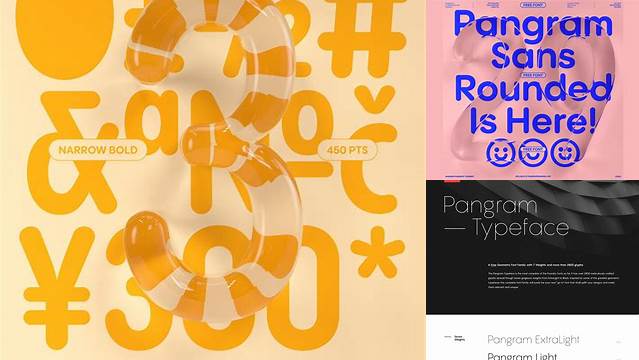
PP Pangram Sans Font: Free Download & Usage Guide
Are you looking for a versatile and modern sans-serif font for your next design project? Look no further than PP Pangram Sans Font. In this comprehensive guide, we'll delve into everything you need to know about this popular typeface, including its unique characteristics, ideal use cases, and, most importantly, how to download it for free. PP Pangram Sans Font has become a favorite among designers and typographers for its clean lines, excellent legibility, and extensive character set, making it suitable for a wide range of applications. Whether you're designing a website, creating a logo, or working on print materials, PP Pangram Sans offers the flexibility and aesthetic appeal you need to make your project stand out. The demand for high-quality, free fonts has grown exponentially, and PP Pangram Sans Font certainly fits the bill, providing a professional touch without the hefty price tag. In the following sections, we will explore the various aspects of this font, ensuring you have all the information necessary to make an informed decision about using it in your design endeavors. We'll cover its history, key features, licensing, and, of course, guide you through the process of downloading it safely and legally. So, let's dive in and discover why PP Pangram Sans Font is the perfect addition to your font library.
What is PP Pangram Sans Font?
At its core, PP Pangram Sans Font is a contemporary sans-serif typeface designed with clarity and versatility in mind. Its clean, geometric shapes and balanced proportions make it highly readable across various media, from digital screens to printed materials. The term "pangram" itself refers to a sentence that contains every letter of the alphabet, and PP Pangram Sans lives up to its name by including a comprehensive character set that supports multiple languages and typographical needs. This font family stands out due to its neutral yet modern aesthetic, making it an excellent choice for projects that require a professional and approachable look. The absence of serifs gives it a clean and minimalist feel, which is particularly well-suited for contemporary design trends. Furthermore, PP Pangram Sans Font is available in multiple weights, ranging from light to bold, providing designers with the flexibility to create visual hierarchy and add emphasis where needed. The different weights ensure that the font can be used effectively for both headings and body text, maintaining readability and visual appeal. The attention to detail in its design, such as the subtle variations in stroke width and the carefully crafted letterforms, contributes to its overall elegance and usability. PP Pangram Sans Font is not just another sans-serif font; it is a carefully constructed typeface that aims to meet the diverse needs of modern design projects. Whether you are working on a branding project, a website, or a print campaign, PP Pangram Sans Font offers a reliable and stylish option. Its versatility and legibility make it a go-to choice for designers looking to create a polished and professional look. In the following sections, we will delve deeper into its specific features and explore how you can best utilize this font in your projects.
PP Pangram Sans Font boasts several key features that make it a standout choice for designers. First and foremost, its clean and modern design ensures excellent legibility, making it suitable for a wide range of applications. The absence of serifs contributes to its contemporary feel, while the carefully balanced letterforms maintain a professional appearance. This makes PP Pangram Sans Font an ideal option for both digital and print projects, ensuring your text remains clear and readable across all mediums. Another notable characteristic is its extensive character set. As the name suggests, PP Pangram Sans includes a comprehensive range of characters, symbols, and ligatures, supporting multiple languages and typographical nuances. This is particularly beneficial for projects that require multilingual support or specialized typographic elements. The inclusion of various weights, from light to bold, further enhances its versatility, allowing designers to create visual hierarchy and emphasis within their designs. The different weights provide the flexibility to use PP Pangram Sans Font for headlines, body text, and captions, ensuring a cohesive and professional look throughout your project. Moreover, the font's geometric construction and balanced proportions contribute to its overall aesthetic appeal. The subtle variations in stroke width and the meticulous design of each letterform demonstrate the attention to detail that went into its creation. This attention to detail results in a typeface that is both visually pleasing and highly functional. PP Pangram Sans Font is also designed to be highly adaptable, fitting seamlessly into various design styles and contexts. Whether you are working on a minimalist website, a corporate brochure, or a creative poster, this font can be easily integrated into your project. Its neutral yet modern appearance makes it a versatile choice for a wide range of design needs. In summary, the key features of PP Pangram Sans Font – its clean design, extensive character set, multiple weights, geometric construction, and adaptability – make it a valuable asset for any designer's toolkit. In the next section, we will explore some of the best use cases for this font, providing practical examples of how it can be applied in real-world projects.
Ideal Use Cases for PP Pangram Sans Font
The versatility of PP Pangram Sans Font makes it suitable for a wide array of design projects. Its clean and modern aesthetic lends itself particularly well to corporate branding, where a professional and approachable image is essential. Think logos, business cards, and website designs – PP Pangram Sans Font can help convey a sense of reliability and modernity. Its excellent legibility ensures that your brand message is clearly communicated across all platforms, from digital screens to printed materials. In the realm of web design, PP Pangram Sans Font shines due to its readability and clean lines. It works exceptionally well for body text, headlines, and navigation menus, providing a seamless user experience. The font's geometric construction and balanced proportions make it easy on the eyes, reducing eye strain and improving overall readability. This is crucial for websites where users spend extended periods reading content. For print materials, such as brochures, posters, and magazines, PP Pangram Sans Font offers a sophisticated and professional touch. Its various weights allow for creative typography and visual hierarchy, ensuring that your message stands out. The font's extensive character set also supports different languages, making it a global-friendly option for international publications. PP Pangram Sans Font is also an excellent choice for editorial design. Its clean and neutral appearance makes it a perfect companion to visual elements, allowing your content to take center stage. Whether you're designing a book, a magazine, or a newspaper, this font can help create a visually appealing and easy-to-read layout. Furthermore, PP Pangram Sans Font is well-suited for user interface (UI) design. Its clarity and legibility make it an ideal choice for app interfaces, dashboards, and other digital platforms. The font's modern look and feel can enhance the user experience, making your application more intuitive and engaging. In essence, PP Pangram Sans Font is a versatile typeface that can be applied to virtually any design project. Its clean lines, excellent legibility, and extensive character set make it a reliable and stylish choice for corporate branding, web design, print materials, editorial design, and UI design. In the following sections, we will discuss how you can download this font for free and the licensing considerations you need to keep in mind.
In conclusion, PP Pangram Sans Font is a versatile and modern typeface that offers a range of benefits for designers. Its clean lines, excellent legibility, and extensive character set make it a standout choice for corporate branding, web design, print materials, editorial design, and UI design. Whether you're creating a logo, designing a website, or working on a print campaign, PP Pangram Sans Font provides the flexibility and aesthetic appeal you need to make your project stand out. We've covered what PP Pangram Sans Font is, highlighting its key features and characteristics, including its clean and modern design, extensive character set, multiple weights, geometric construction, and adaptability. We've also explored ideal use cases for the font, providing practical examples of how it can be applied in real-world projects, from corporate branding to web design and print materials. Downloading PP Pangram Sans Font for free is possible through various font repositories and designer communities, but it's crucial to ensure you're doing so from a reputable source and that you understand the licensing terms. The font license dictates how you can legally use the font, whether for personal or commercial projects, and it's essential to comply with these terms to avoid any potential legal issues. We've also discussed alternatives to PP Pangram Sans Font, such as Inter, Roboto, Open Sans, Montserrat, and Lato, providing you with a range of options to consider for your projects. Having a diverse font library is beneficial, as it allows you to select the perfect typeface for each specific design need. Ultimately, PP Pangram Sans Font is a valuable asset for any designer's toolkit. Its versatility, legibility, and modern aesthetic make it a reliable and stylish choice for a wide range of projects. By understanding its features, use cases, licensing, and alternatives, you can effectively incorporate PP Pangram Sans Font into your design workflow and create visually compelling and professional designs. Remember to always prioritize using fonts responsibly and ethically, respecting the rights of font designers and distributors. With the right approach, PP Pangram Sans Font can be a powerful tool in your design arsenal, helping you achieve your creative goals and bring your visions to life.